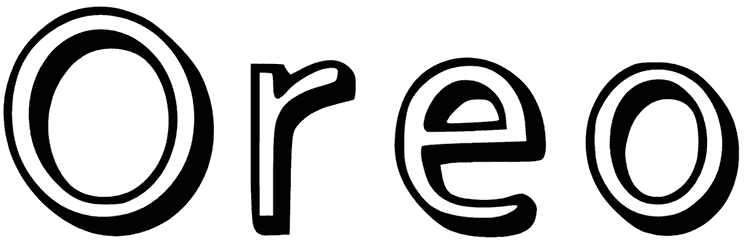
Oreo Font
Use the shadow font Oreo for a fun impact and a more playful appearance and feel in your digital works. This font is a perfect complement to any presentation, from magazines and movie posters to banners. This cheerful font merits recognition for its bright tones. Grab this eye-catching font now and see how quickly it captures the attention of those who see it.
Designed by: Federico Panelli